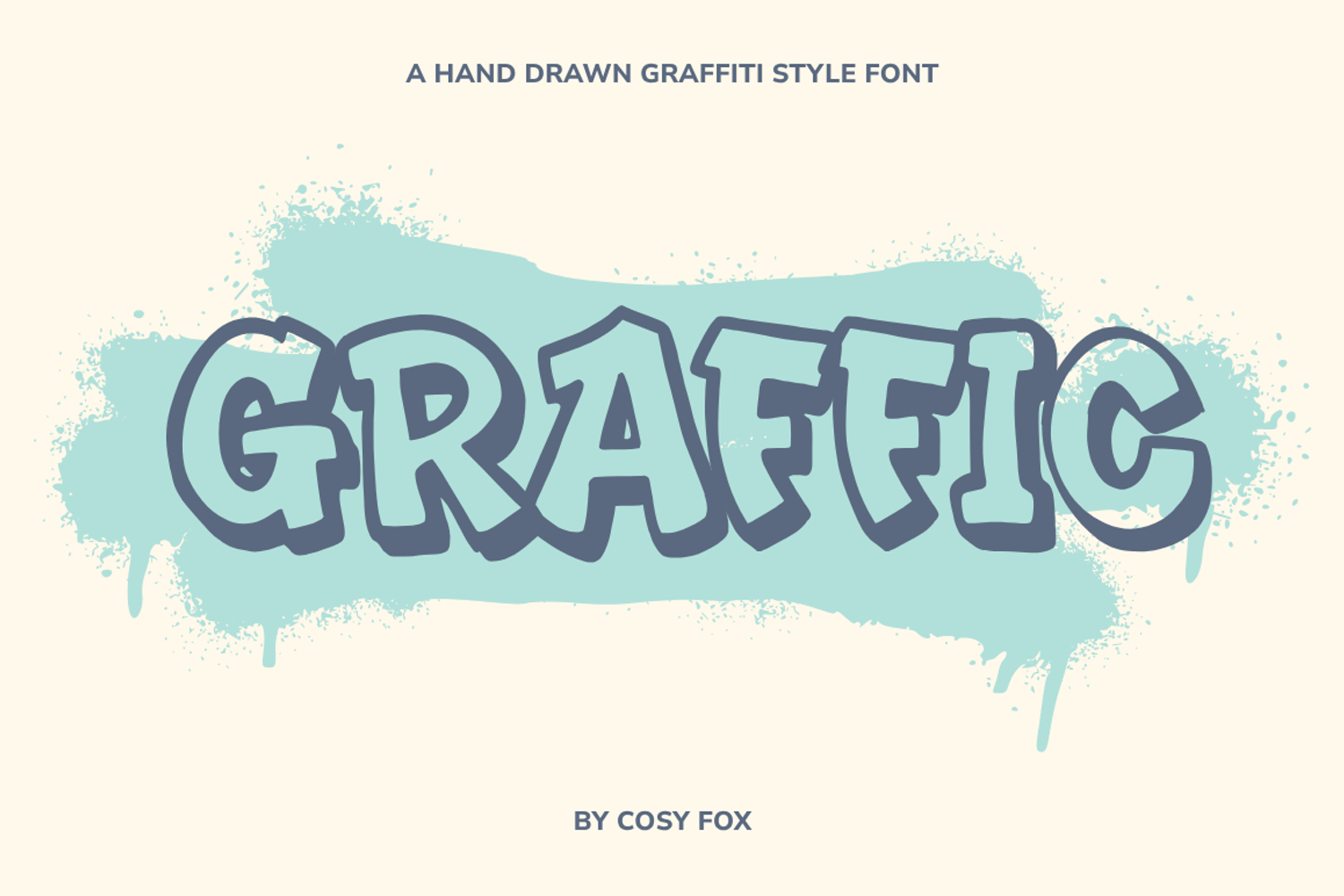
Graffic Display Font
Graffic is a bold, expressive graffiti-style font designed to bring raw energy into your work. Inspired by urban textures and the rhythm of real-world lettering, it captures that slightly rebellious, hand-sprayed feel while staying clean enough to use across modern design projects.
It holds its own on posters, branding, apparel, and social graphics, adding instant attitude without losing clarity. Each letter carries movement and personality, giving your designs a sense of voice rather than just type.
If you’re looking to create something loud, confident, and impossible to ignore, Graffic is ready to make its mark.